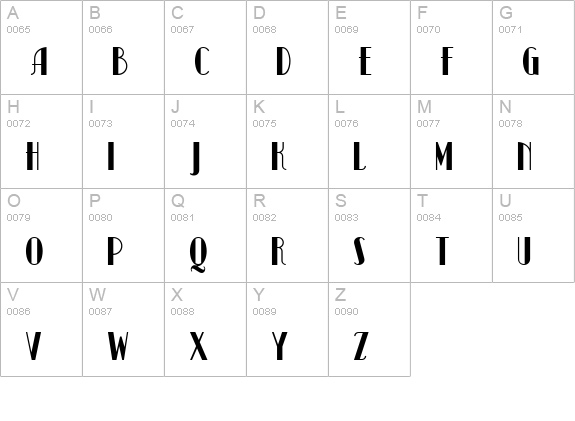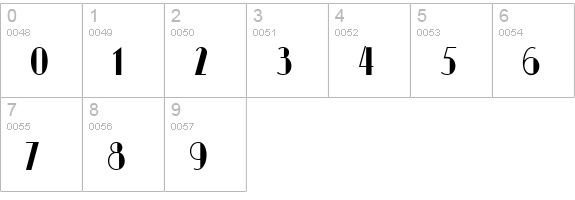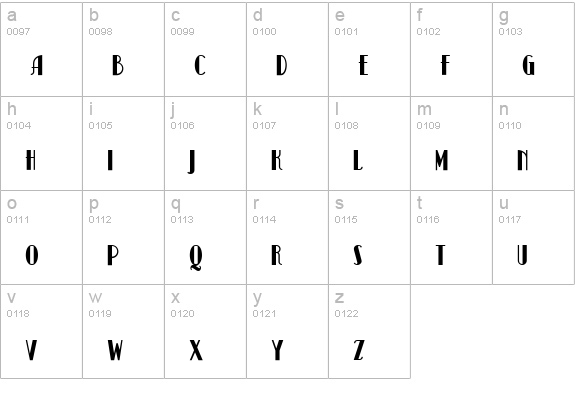
Kismet NF font is a stunning display typeface that exudes elegance and sophistication. With its delicate curves and graceful letterforms, this font is perfect for adding a touch of class to any design project. Whether it's a wedding invitation, a logo, or a branding campaign, Kismet NF font will make a lasting impression. But what sets Kismet NF font apart is its accessibility. This font is not only beautiful, but it is also free. That's right, you can download Kismet NF font for free at FontsMarket.com. This means that you can enjoy the beauty and versatility of this font without breaking the bank. Designed with precision and attention to detail, Kismet NF font offers a wide range of characters and ligatures, allowing you to create unique and eye-catching designs. Its smooth and flowing lines make it ideal for both print and digital projects, ensuring that your message is conveyed with style and clarity. Whether you're a professional designer or someone who simply loves typography, Kismet NF font is a must-have in your collection. Its timeless beauty and accessibility make it a versatile choice for any project. So why wait? Head over to FontsMarket.com and download Kismet NF font for free today.